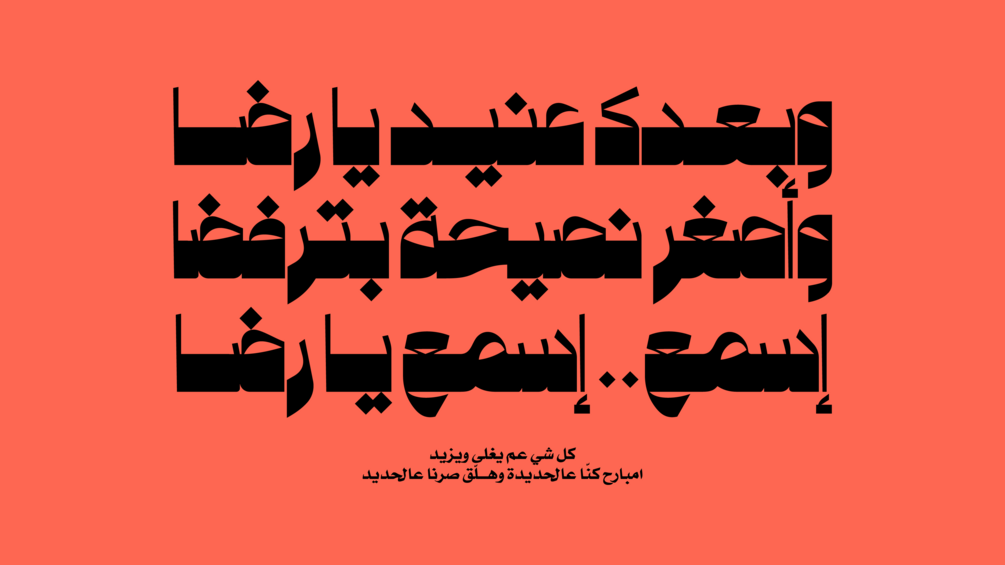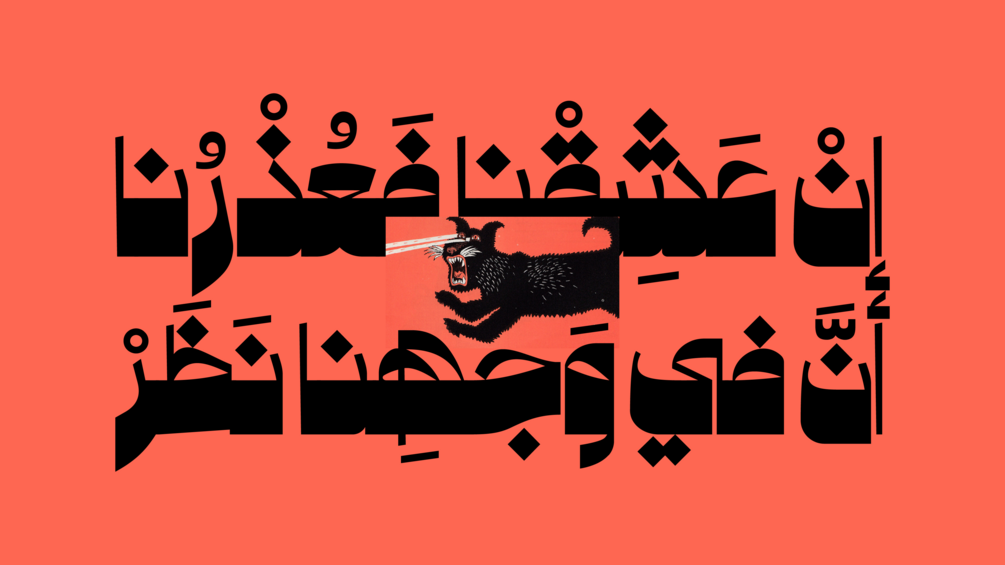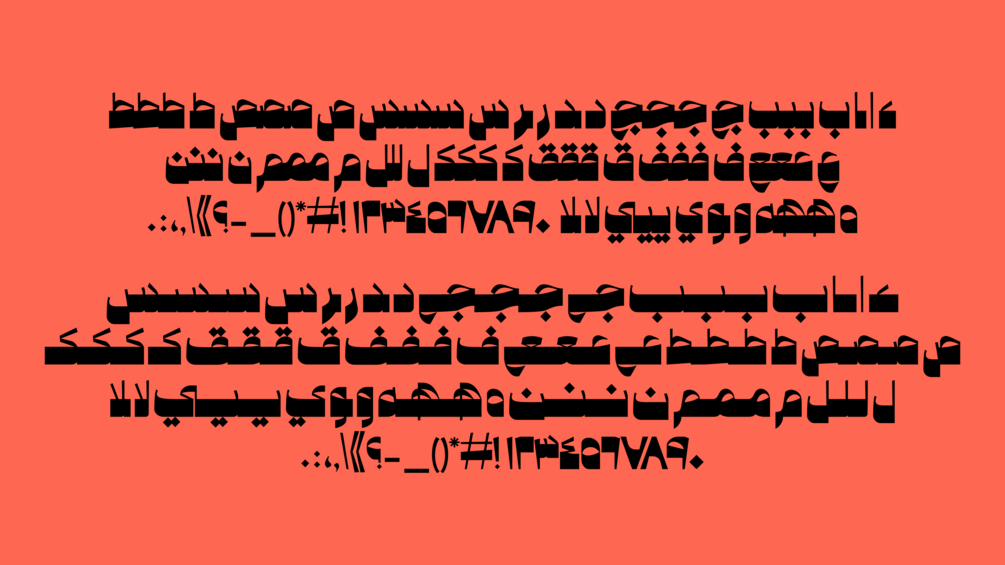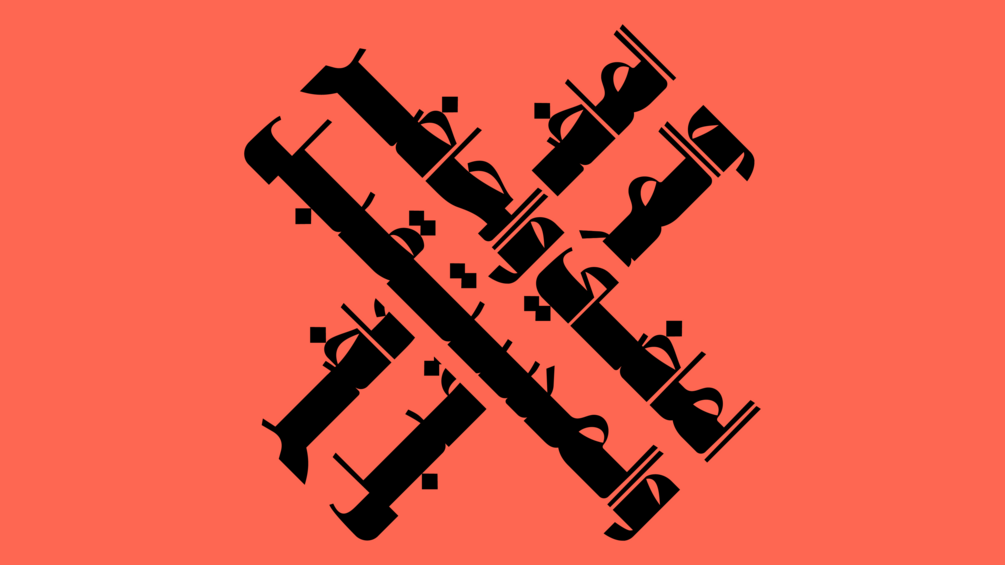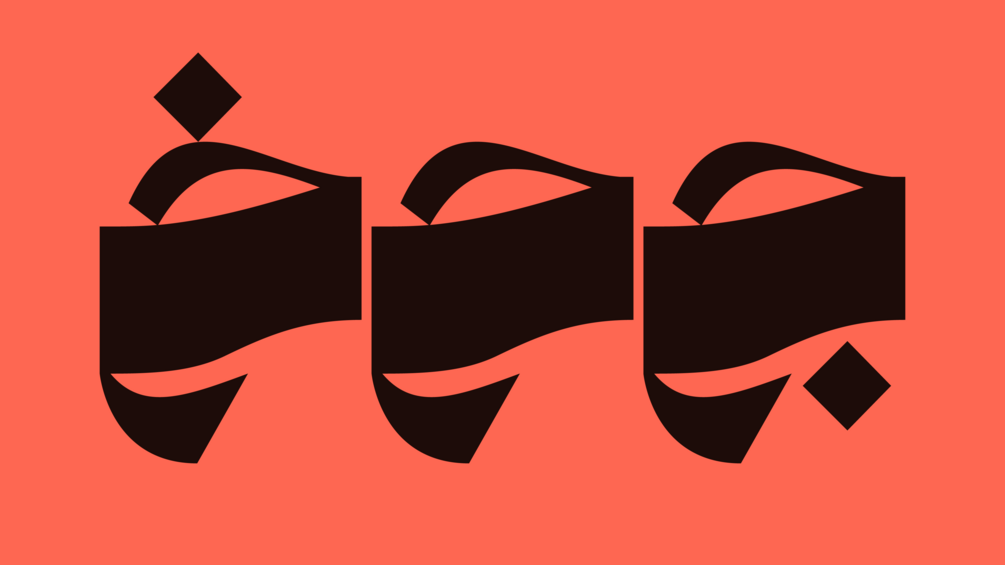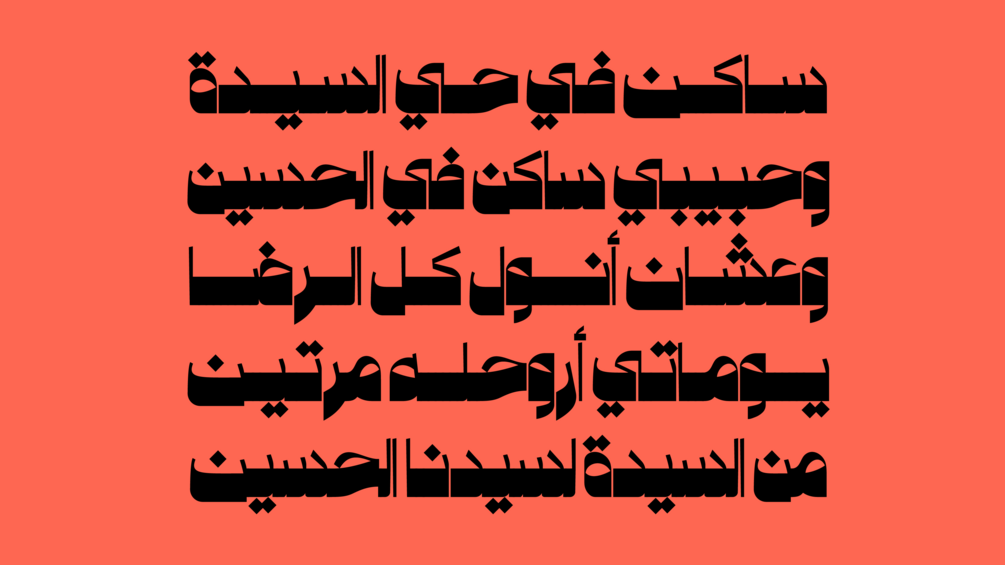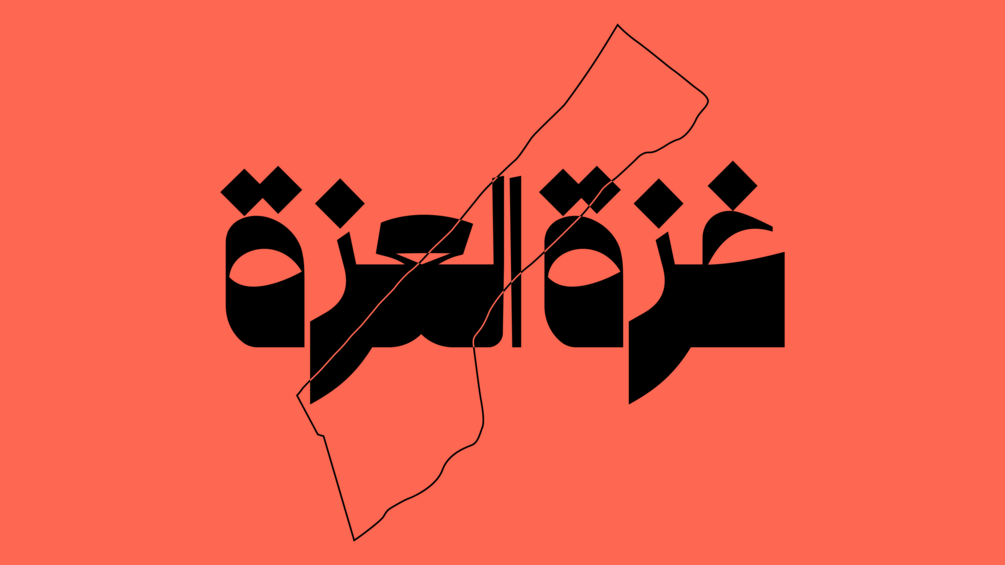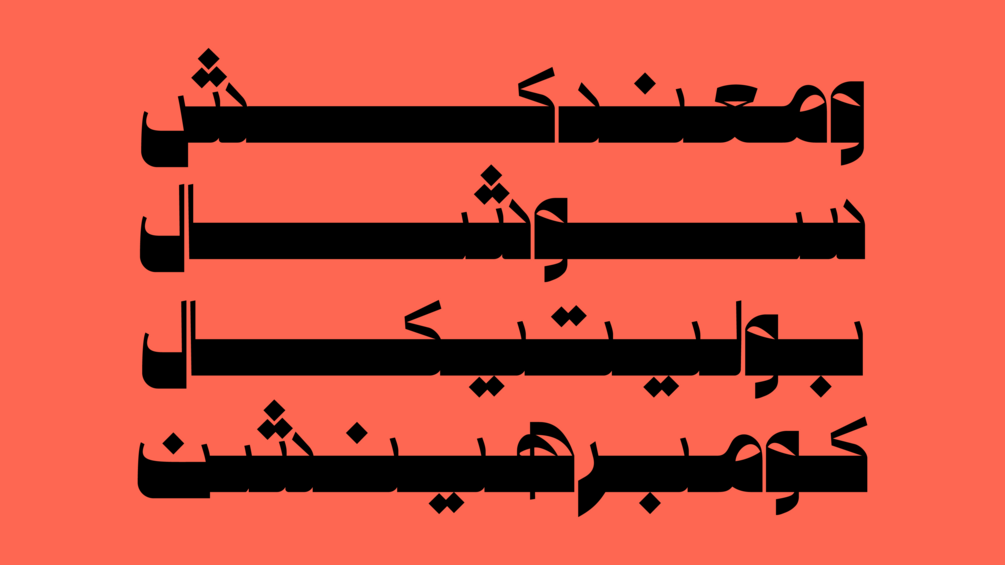
Rubbama Typeface
Rubbama typeface
Rubbama is a black, vintage-style Arabic typeface that combines precision and subtlety with a flowing and expressive character. Rubbama comes in two versions: normal and expanded.
Arabic typeface
OpenType Features
Required Ligatures.